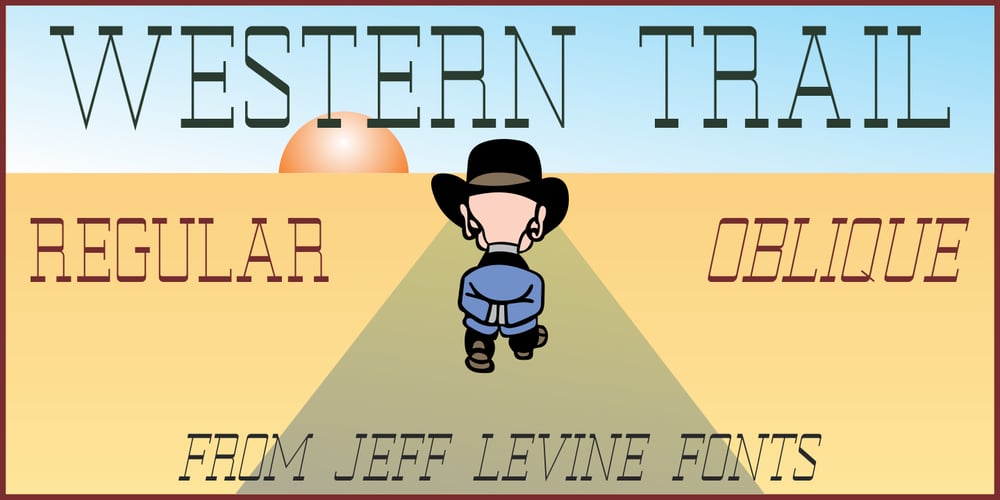
Western Trail JNL Font Family was designed by Jeff Levine and published by Jeff Levine. Western Trail JNL contains 2 styles and family package options. For decades, Samuel Welo’s “Studio Handbook for Artists and Advertisers” was a source of inspiration for sign painters, graphic artists and designers. In later years, many digital revivals of Welo’s hand lettered typography have been made available. Western Trail JNL is the latest member of such digital fonts, and is available in both regular and oblique versions.